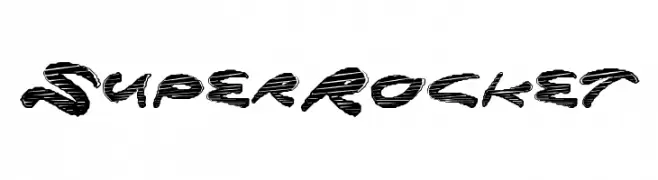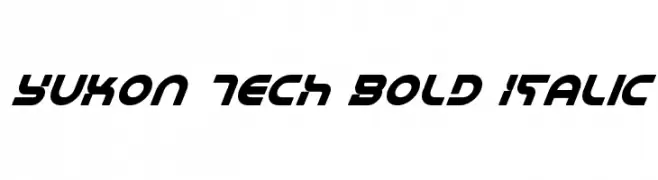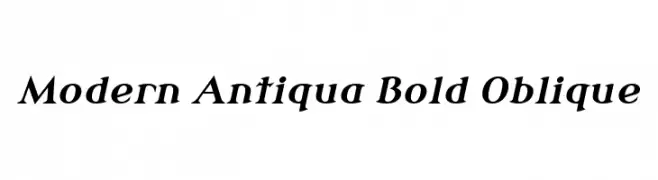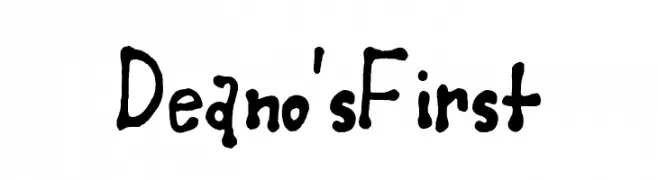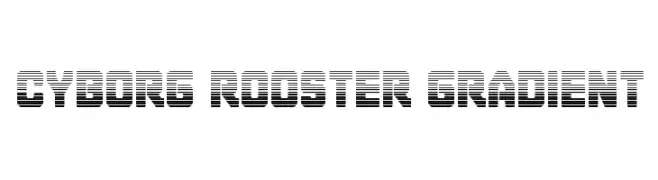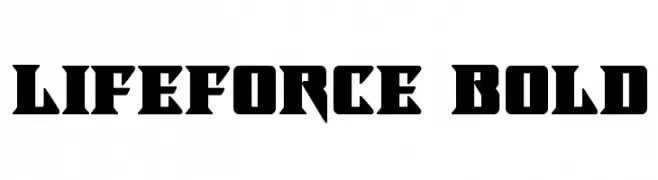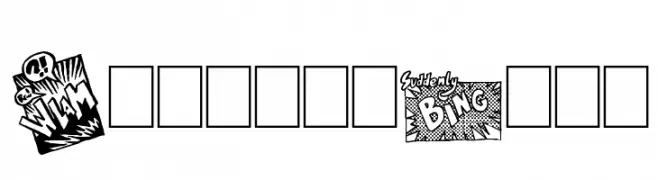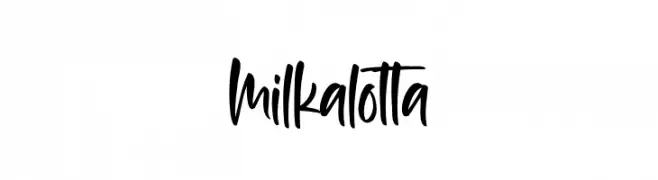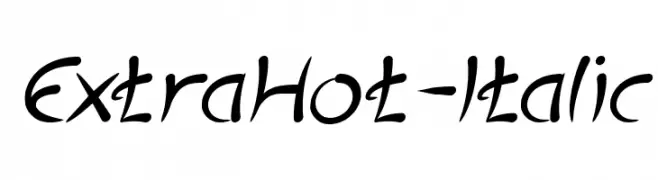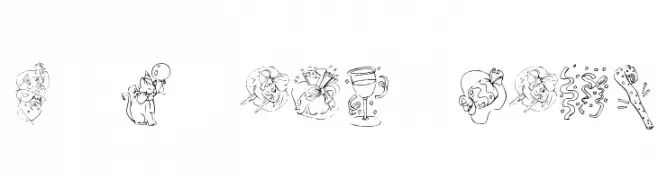
A bold, brush-stroke font with a dynamic and energetic style.
A thin, modern font with clean lines and balanced spacing.
A modern italic font with sleek, flowing lines and slightly condensed letterforms.
A bold, dynamic script font with flowing cursive elements.
A decorative font inspired by ancient Mesoamerican art, featuring intricate and bold glyphs.
A bold, pixelated font with a retro, digital aesthetic.
A bold, 3D italic font with a playful and dynamic style.
A bold, oblique serif font with a modern-antique blend.
A playful, rounded font with smooth curves and consistent stroke width.
A classic serif font with elegant, sharp serifs and balanced proportions.
A playful, hand-drawn font with a whimsical and informal style.
A bold, geometric font with a 3D effect and contrasting elements.
A futuristic, bold font with a gradient line pattern and geometric shapes.
A bold, angular font with a modern, geometric style.
A digital, segmented font inspired by calculator displays with rounded rectangular enclosures.
A bold, comic book style font with dynamic, explosive characters.
A playful and elegant handwritten font with fluid strokes and artistic flair.
A playful, bold font with rounded, hand-drawn characters.
A modern, clean font with a handwritten touch and smooth curves.
A bold, handwritten font with a playful and energetic style.
A bold, angular, and slanted font with a modern, digital aesthetic.
A dynamic, italicized handwritten font with lively contrast and expressive style.
A decorative dingbat font with playful, festive icons for celebrations.
A playful, hand-drawn font with bold, uneven strokes and whimsical character shapes.
A bold, playful font with an irregular, hand-drawn style.
A flowing, cursive script with elegant, sweeping strokes and decorative flourishes.
A playful, rounded font with a hand-drawn, whimsical style.
A bold, modern font with angular cutouts and a dynamic style.
A playful, hand-drawn font with rounded edges and a casual style.
A bold, decorative font with blackletter influences and modern flair.